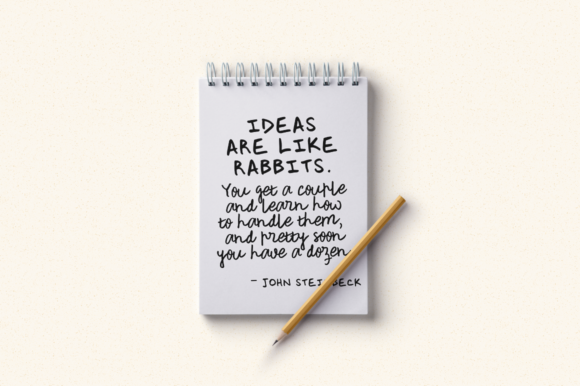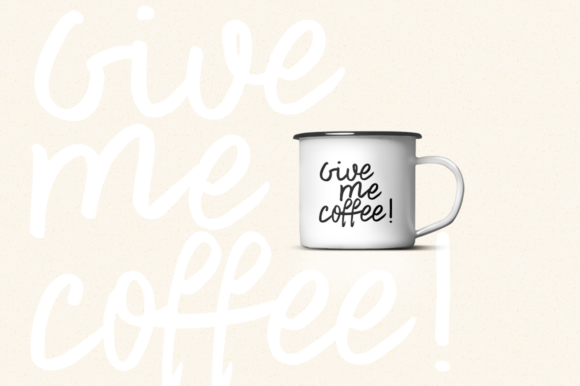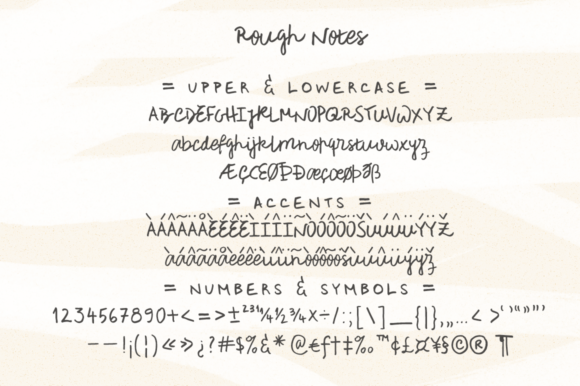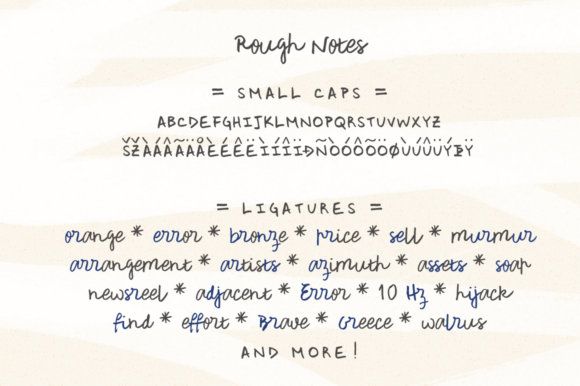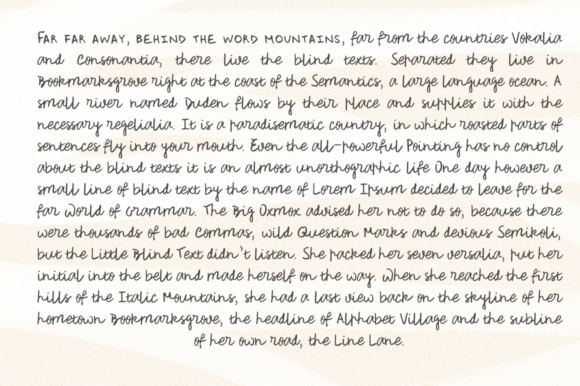
Rough Notes Font
About Rough Notes Font
Rough Notes is a cute, casual and friendly handwritten font. It has a modern yet whimsical style and it will undoubtedly immerse your designs into a magical world.